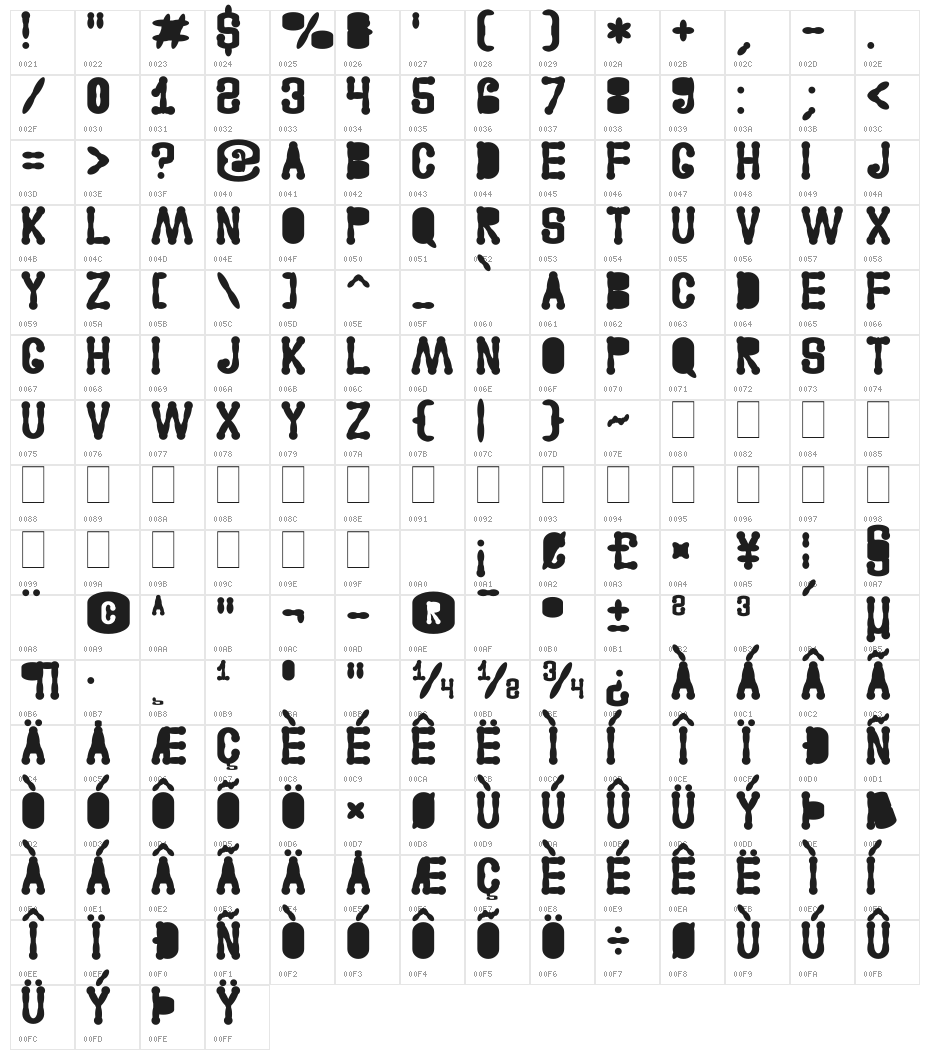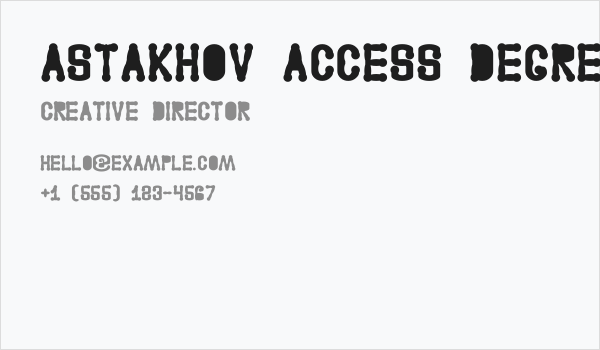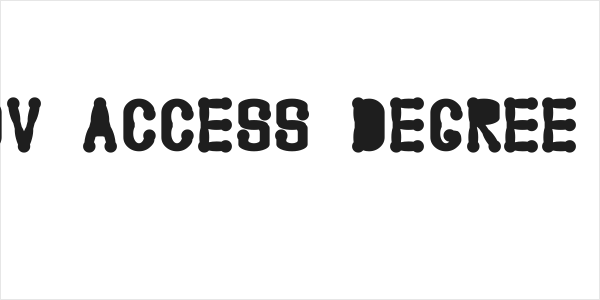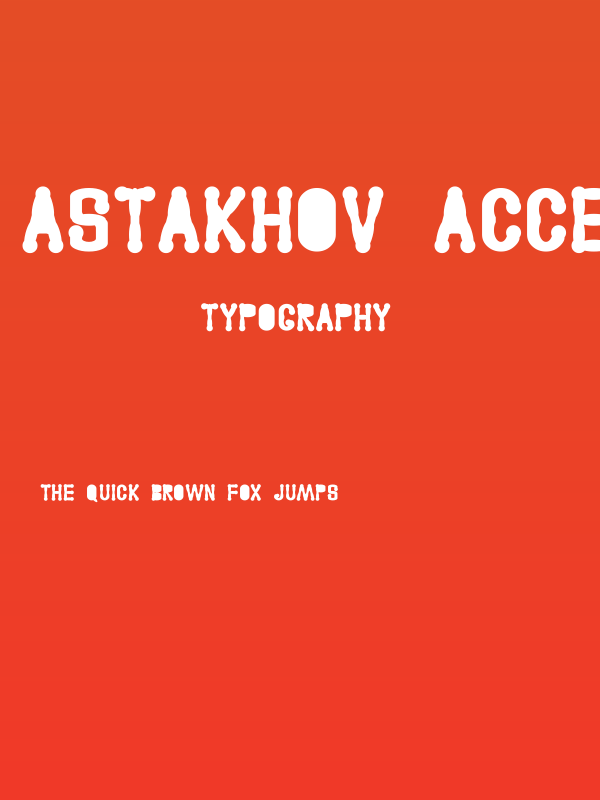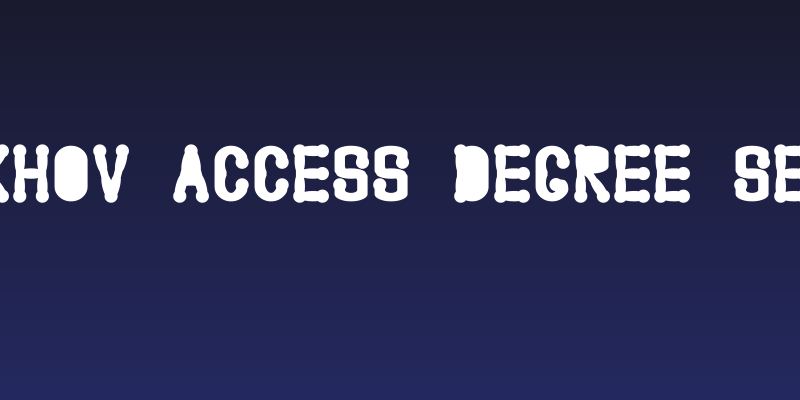
Astakhov Access Degree Serif F Font
Astakhov Access Degree Serif F Description
This font features a bold and distinctive style with thick, rounded edges and a playful, almost cartoonish appearance. The characters are heavily weighted, giving them a strong presence on the page. The rounded forms and exaggerated serifs add a whimsical touch, making it suitable for creative and informal designs. The numbers and special characters maintain the same bold and rounded characteristics, ensuring consistency throughout the typeface. This font's unique style makes it stand out, ideal for projects that require a fun and eye-catching look.
| Proposed Projects | Ideal for children's books, posters, logos, and playful branding materials. |